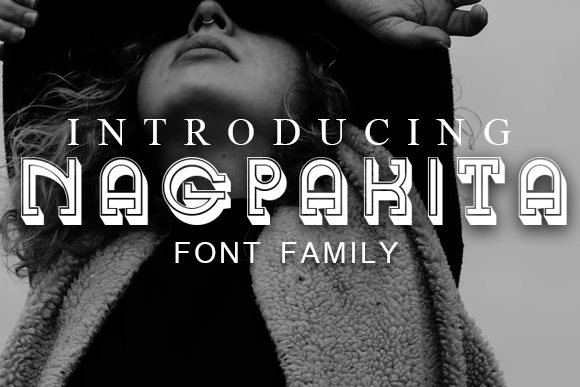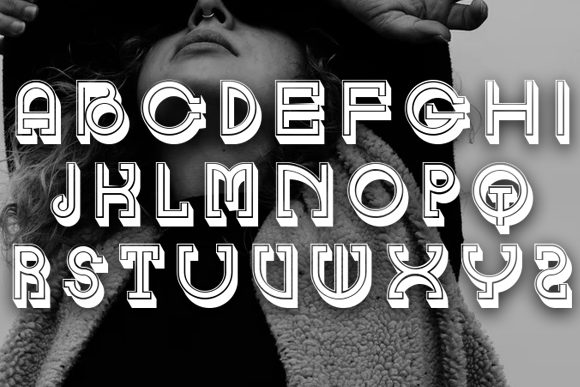
Nagpakita
Nagpakita: An Awesome Decor-Style Slab Serif Font
Nagpakita is a distinctive slab serif font that combines decorative style with versatility. This eye-catching typeface is designed to enhance a wide range of design projects, particularly banners, headlines, covers, and posters.
Key Features of Nagpakita
• Decor-Style Design: Offers an ornate and decorative look that stands out.
• Awesome Aesthetic: Provides a visually striking appearance suitable for various applications.
• Slab Serif Structure: Incorporates the characteristic thick, rectangular serifs typical of slab serif fonts.
• Versatile Application: Suitable for a wide range of projects, from banners to posters.
• Eye-Catching Details: Unique characteristics that make designs stand out with a decorative flair.
Ideal Uses for Nagpakita
Nagpakita’s unique characteristics make it particularly well-suited for:
• Eye-catching banners and advertisements
• Striking headlines and titles
• Book and magazine covers
• Poster designs
• Branding projects requiring a decorative touch
• Social media graphics and content
When incorporating Nagpakita into your designs, consider these tips:
• Use for headlines or short blocks of text to maximize its decorative impact
• Experiment with different sizes to highlight the font’s unique details
• Take advantage of its versatility across various design projects
Nagpakita is an excellent choice for designers looking to add an awesome decor-style slab serif font to their typographic toolkit. Its ability to enhance various design projects with a decorative touch makes it stand out in the world of typography. Whether you’re working on logo designs for creative brands, creating layouts for eye-catching posters, or developing content that requires a unique and ornate presence, Nagpakita offers the perfect blend of style and versatility.
Furthermore, Nagpakita’s adaptability allows it to shine in various contexts. From vintage-inspired designs with a modern twist to more playful layouts that need a touch of sophistication, this font can elevate your projects. Its decorative yet readable style works particularly well in designs that require a striking and memorable mood.
In conclusion, Nagpakita is a font that truly lives up to its awesome description, offering a decorative and eye-catching presence in any design. Its ability to work well in both elegant, sophisticated projects and more elaborate layouts showcases its flexibility. For those looking to add a touch of decorative flair to their work, Nagpakita can even enhance themed creations with its unique, ornate style. Add it confidently to your designs, and watch how it brings them to life with its awesome decor-style character!